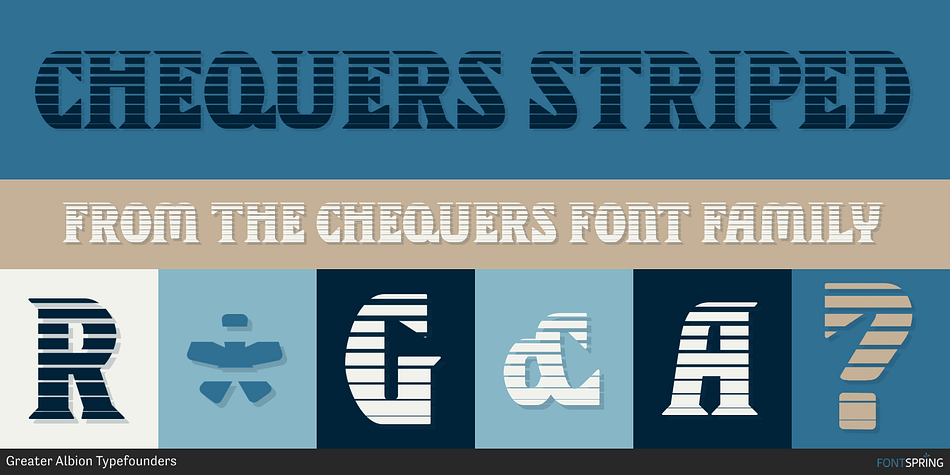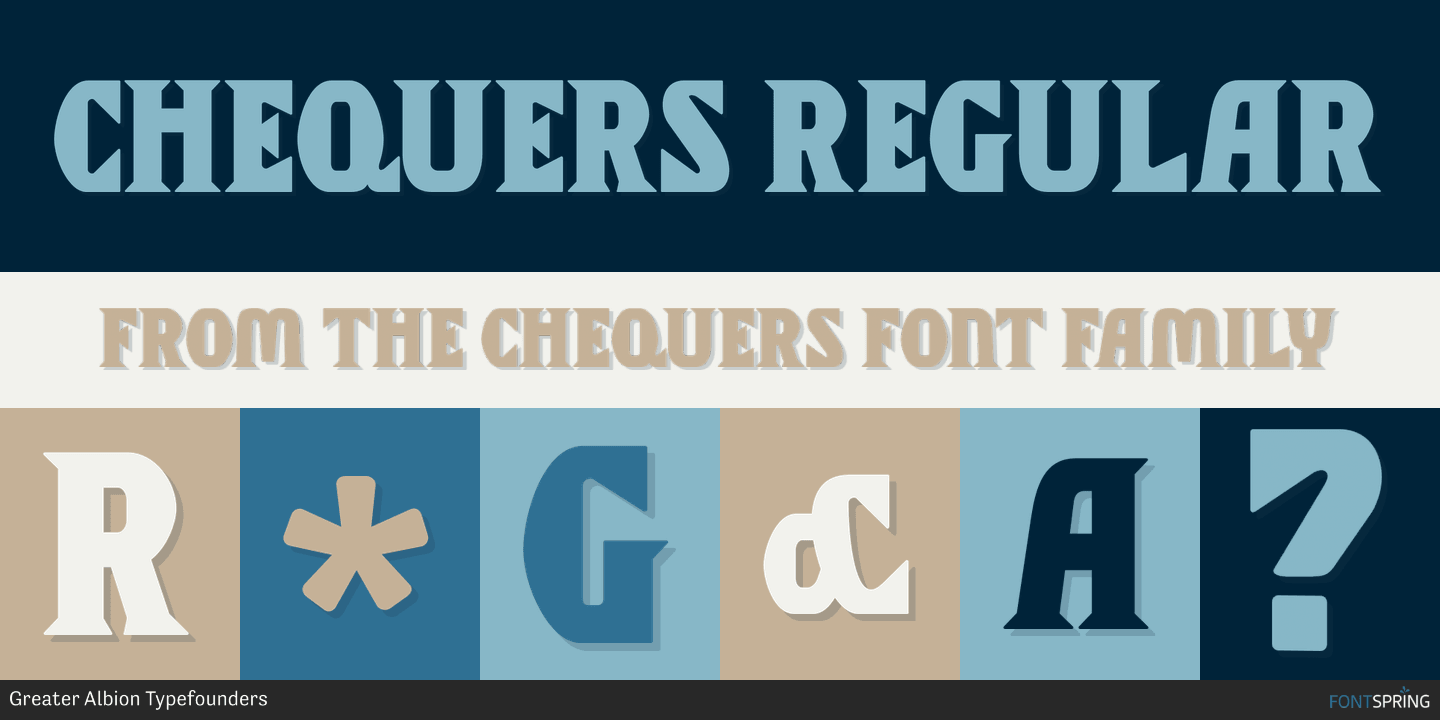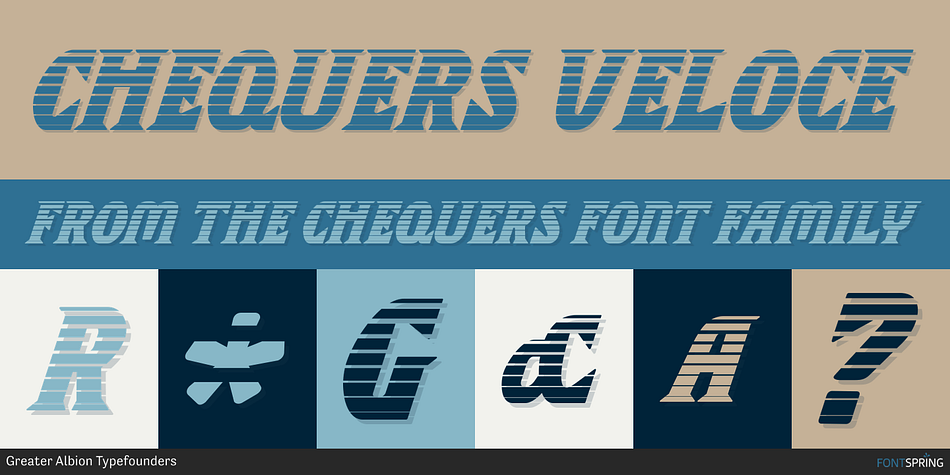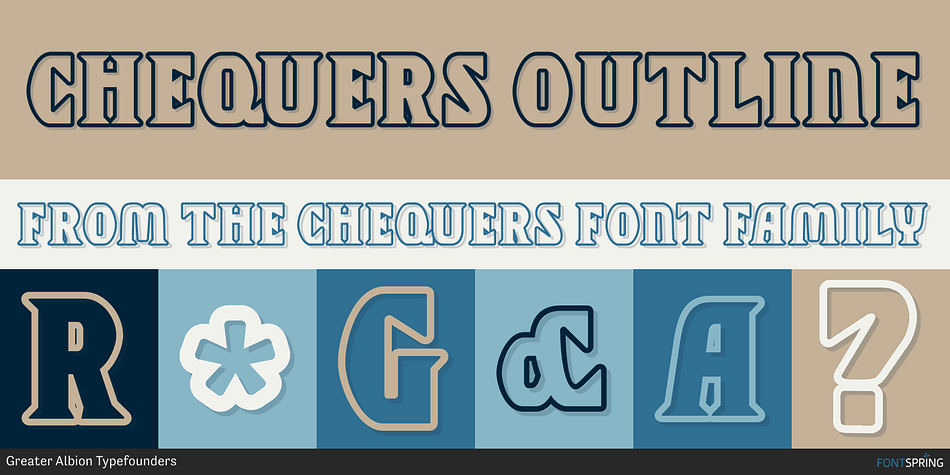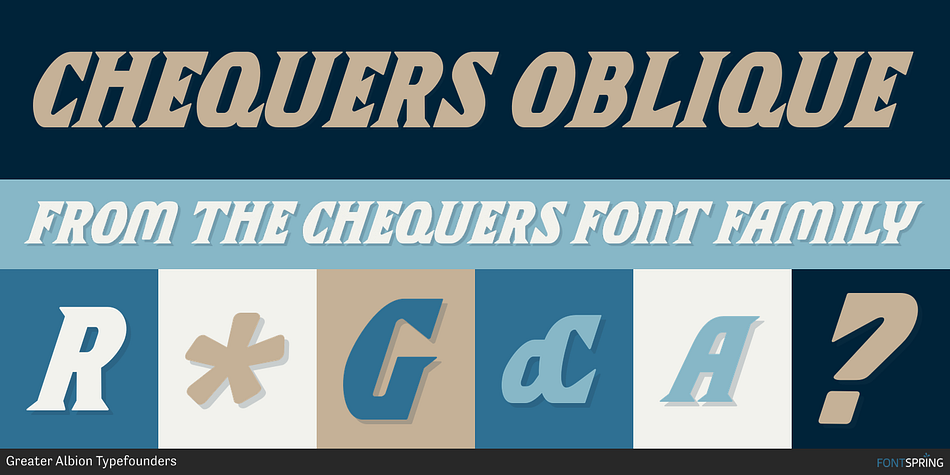
Chequers is a display serif font family. This typeface has six styles and was published by Greater Albion Typefounders.
Chequers was inspired by the all-capitals lettering seen on a 1920s magazine cover. It is a family of six small-serifed display faces, including a selection of stylistic alternates. Use it for a comfortable period feel in your design work.